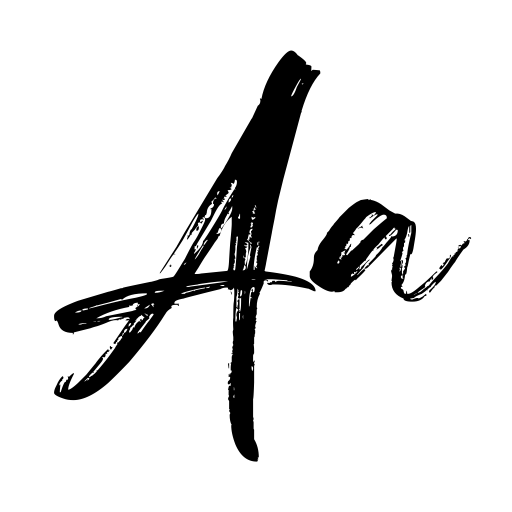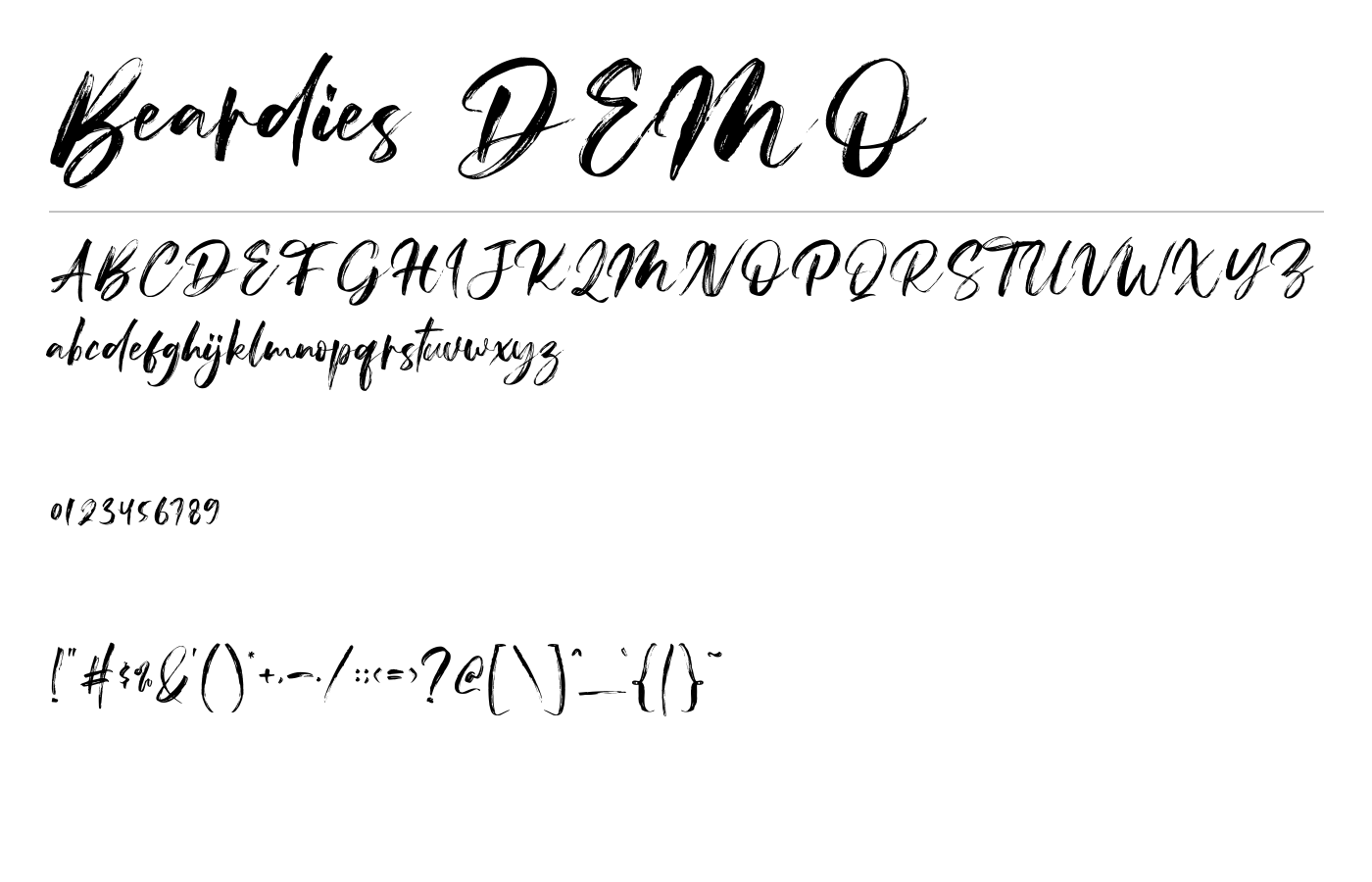
Beardies DEMO is a dynamic handwritten script font featuring bold, expressive brush strokes with varying thickness and a textured, organic feel. It conveys a lively and creative personality, making it ideal for casual branding, artistic projects, and eye-catching headlines that want to add a personal, energetic touch. This font works great in designs needing a sense of motion and individuality, such as logos, invitations, and posters.
Beardies DEMO Font
About Beardies DEMO Font
| Font family | Beardies DEMO Font |
| Designer | Randi Ilhamsyah |